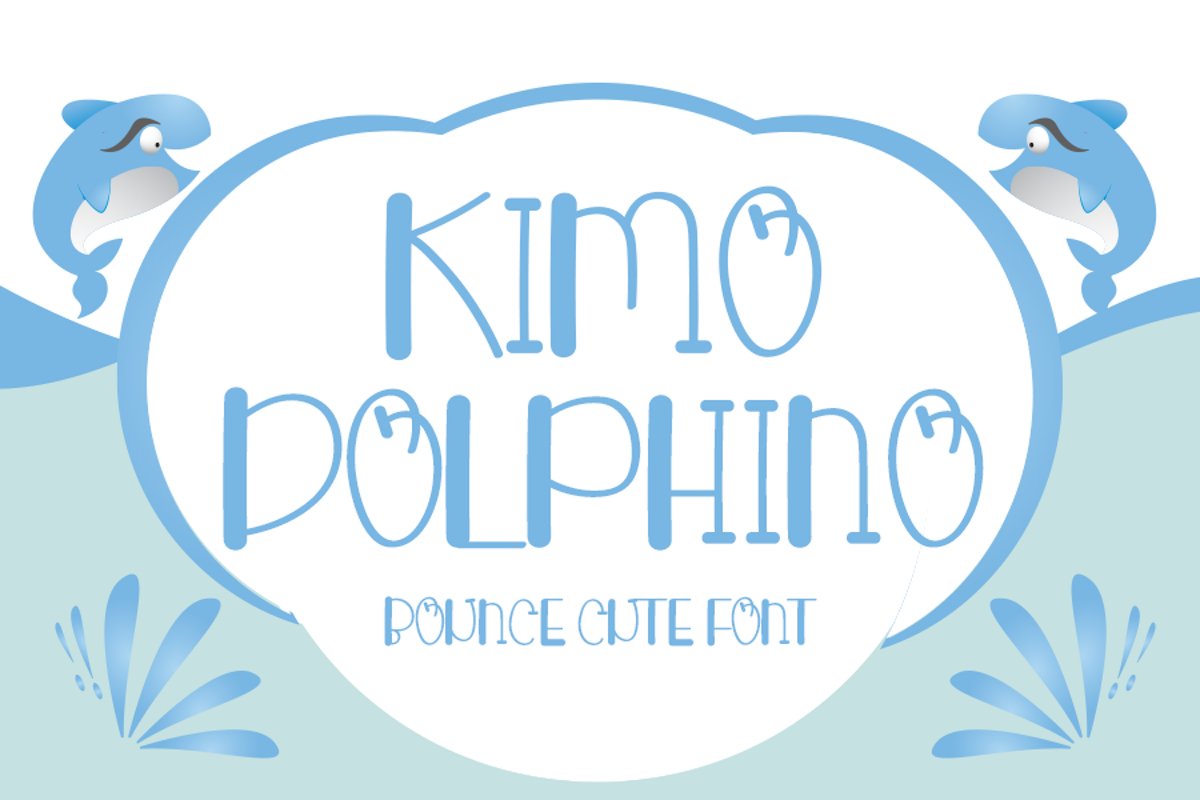
Kimo dolphino - Cute Display Font
Kimo Dolphino
Kimo Dholpino
Kimo dolphino embodies fun, quirkiness and authenticity. This enchanting display font will turn any creative idea into a true standout.
+More than 100+ Glyphs
+More than 43 Languages
+PUA-Encoded for many alternates and ligatures